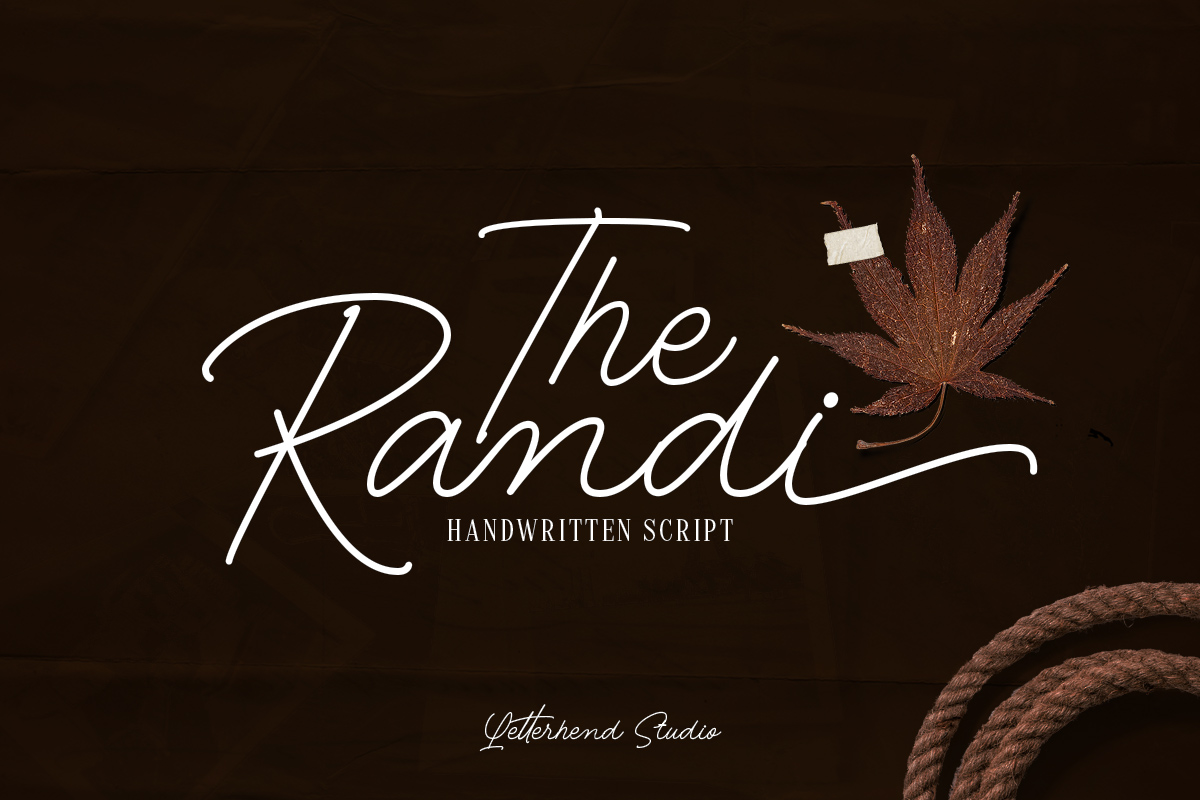
The Randi Font
The Randi Font is perfect for personal lifestyle blog headers, friendly small business branding, approachable wellness center signage, warm community event posters, personable coaching service materials, inviting café menu designs, cheerful local business advertising, welcoming therapy practice logos, neighborly service provider marketing, and heartfelt personal branding projects. This personable typeface brings authentic warmth to family photography studios, community-focused organizations, personal development workshops, friendly neighborhood businesses, and approachable professional service providers.
The Randi Font is exciting because it captures the essence of genuine personal connection and authentic human warmth through its thoughtfully crafted letterforms. The font features friendly, approachable characters with gentle curves and personal touches that evoke the feeling of handwritten notes from a trusted friend, warm conversations over coffee, and the comfort of familiar, reliable relationships. Its distinctive construction demonstrates personal care with carefully balanced proportions that create an immediate sense of trustworthiness and human authenticity. The font's personable charm and genuine friendliness make it perfect for brands seeking to communicate personal connection, authentic service, and approachable professionalism in their visual communications.
The Randi Font family includes various friendly styles: Light, Regular, Medium, Bold, Italic, Script, Condensed, Extended, Casual, Warm, Personal, and Friendly variants. Each family member maintains the core personable DNA while offering different levels of approachability for diverse human-centered design applications. The comprehensive font collection ensures consistent personal branding across community-focused campaigns, service-oriented businesses, and relationship-building communication materials.
Whether you're creating personal brand identities, designing community-focused marketing materials, developing approachable website headers, or crafting relationship-building promotional campaigns, The Randi Font delivers outstanding personal appeal and human authenticity. The font's distinctive friendly personality excels in personal logos, community packaging design, approachable applications, and service projects where human connection and authentic warmth are essential.